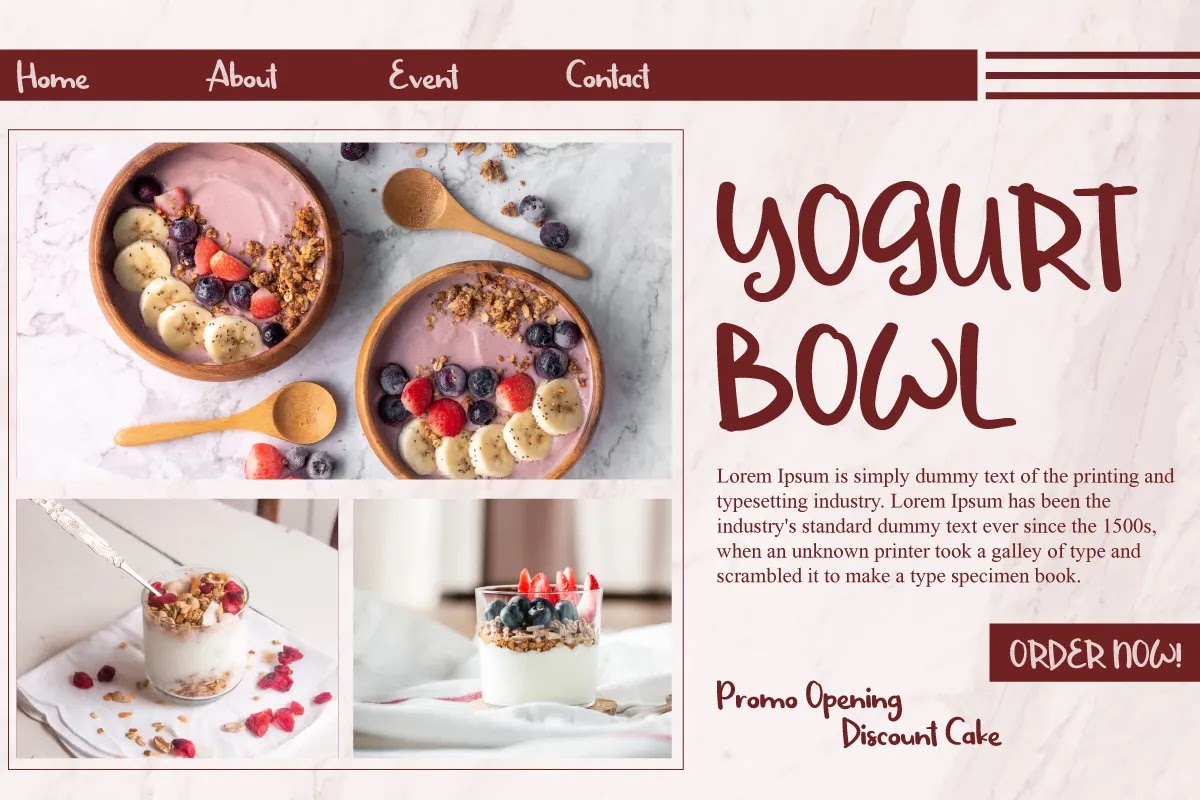
This is a fun handwriting font with awesome handwritten brush style, exclusively created by EdricStudio. This font has a cute feel so it will suit many industries, such as architect, bakery, boutique, cooking, craft, drink brand, florist, publishing, and more!
Hello Bhessy Font comes with a full set of Uppercase and Lowercase Basic Characters, Number, large range of Punctuation and Symbol, Ligature, and Swoosh. It has a stunning characters set, perfectly managed with well spaced and kerning. Hello Bhessy Font will be great for any projects (with extended license) including: blog headers, business card, invitation, label, product packaging, quote, sticker, title, etc.